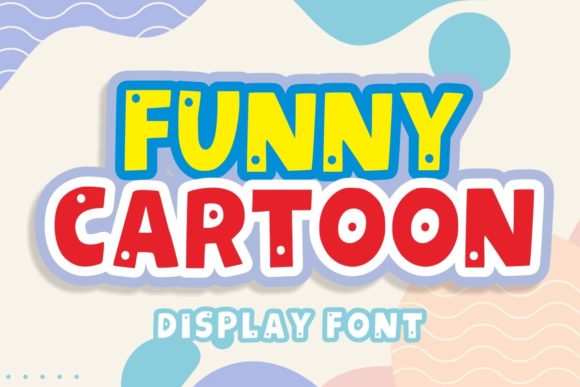
Prepare to unleash your creativity with Funny Cartoon Font, a spirited and playful display font that will infuse your designs with infectious joy. Its childlike charm and effortless readability make it the perfect choice for a wide range of projects, from whimsical crafts to engaging presentations.
Step into a world of visual delight with Funny Cartoon, a font that captures the essence of childhood wonder and imagination. Its playful curves and cheerful strokes evoke a sense of nostalgia, inviting you to embrace your inner child and create designs that spark joy in the hearts of your audience.
Unleash your imagination and let Funny Cartoon take you on a captivating journey through the realm of design. With its boundless versatility, this font effortlessly adapts to any project, bringing life to logos, cover books, greeting cards, and more. Its crisp and legible characters ensure that your message is delivered with clarity and impact, leaving an unforgettable impression on your readers.
Experience the magic of Funny Cartoon, a font that transforms the ordinary into the extraordinary. Its playful demeanor and boundless energy make it the perfect choice for designers seeking to add a touch of whimsy and excitement to their work. Let Funny Cartoon be your creative companion, inspiring you to create designs that capture the imagination and leave a lasting impression.
With Funny Cartoon, you'll discover a font that's not just a tool, but an expression of your creativity. It's a font that empowers you to turn your design dreams into reality, creating works of art that resonate with your audience and leave them craving more. Embrace the power of Funny Cartoon and unleash your creative potential like never before.